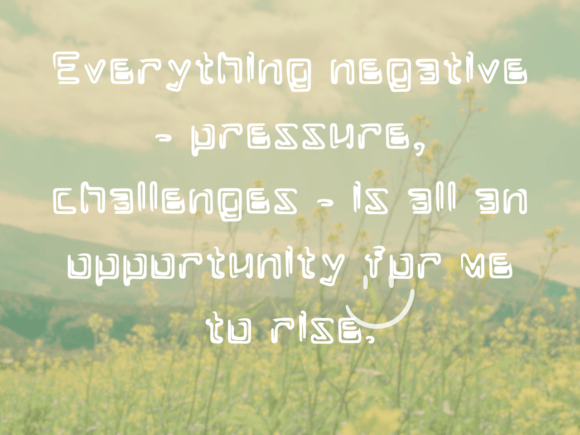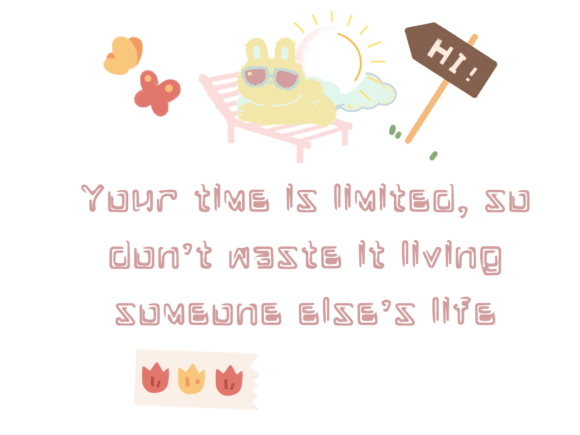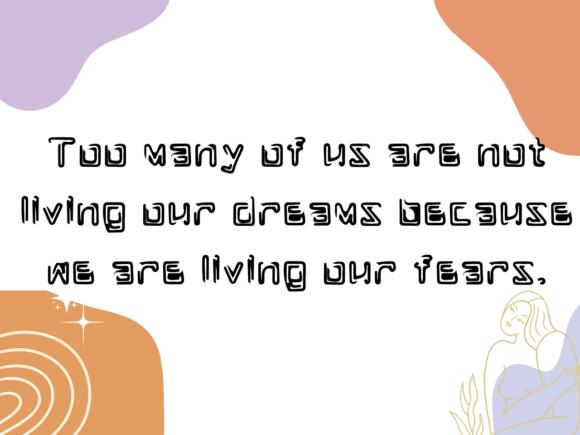
Introduction to Malformed Font
Malformed is an incredibly unique sans serif font.
Masterfully designed to become a true favorite, this font has the potential to bring each of your creative ideas to the highest level .
Why Choose Malformed Font?
Malformed Font offers exceptional quality and versatility, making it a valuable addition to your design toolkit. Whether you’re creating for personal projects or commercial use, Malformed Font delivers professional results.